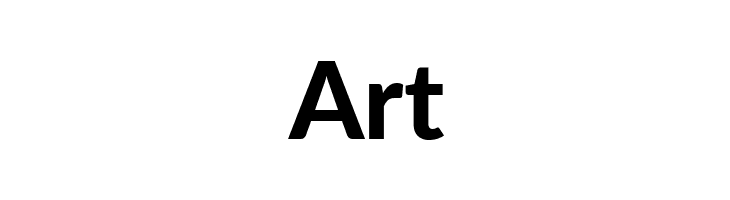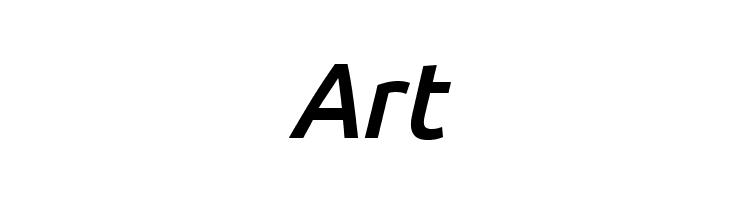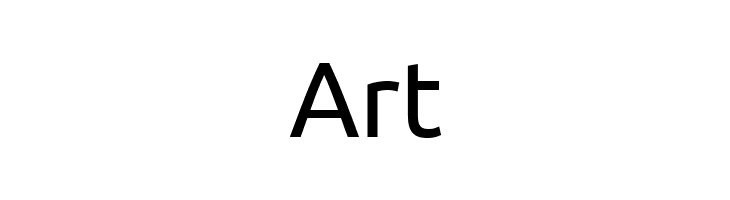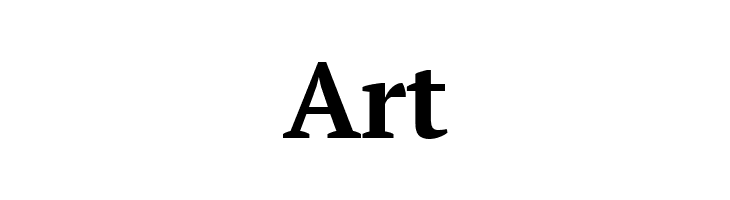
A bold, modern sans-serif font with excellent readability and balance.
A modern, clean, and slightly italic font with medium weight and excellent readability.
A bold, modern sans-serif font with clean, rounded edges and excellent readability.
A modern, clean sans-serif font with balanced proportions and excellent readability.
A clean, modern font with consistent stroke width and excellent readability.
A modern serif typeface with high contrast and elegant serifs.
A classic serif typeface with a modern touch, offering elegance and readability.
A bold serif typeface with strong, classic letterforms and excellent readability.
A modern, italic sans-serif font with excellent readability and dynamic style.
A modern serif font with classic elegance and excellent readability.